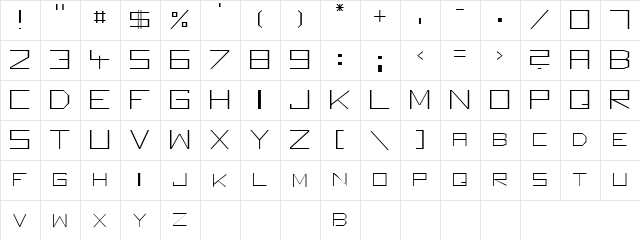
Square Unique Thin
Design Context for Square Unique Typeface
Square Unique offers clean, dependable letterforms without strong stylistic allegiance, making it a practical choice for designers who need flexibility. The delicate stroke weight brings airiness and refinement to layouts.